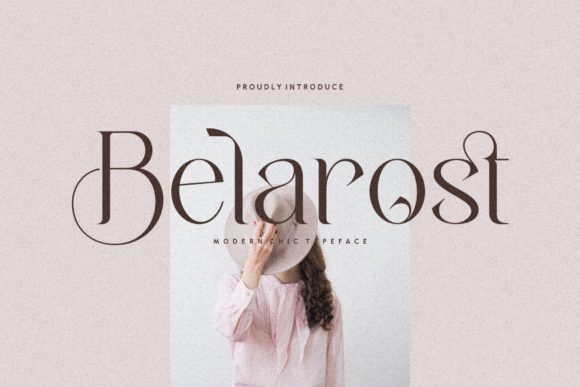
Prepare to be captivated by Belarost, a stunning serif font that embodies elegance, grace, and unparalleled style. Each meticulously crafted letter dances across the page, exuding a timeless charm that will elevate your designs to new heights.
Unlock the power of Belarost and transform your Instagram feed into an enchanting visual masterpiece. Its slender strokes and sophisticated curves will add an air of refinement to your every post, captivating your audience with its understated beauty.
With Belarost, you'll embark on a typographic journey where creativity knows no bounds. Its versatile nature seamlessly complements a wide range of design aesthetics, from classic and timeless to modern and edgy. Whether you're crafting elegant wedding invitations, eye-catching social media graphics, or sophisticated branding materials, Belarost will effortlessly elevate your work to new levels of excellence.
Crafted by the renowned Penatic Studio, Belarost is a testament to the art of font design. Its PUA encoding grants you effortless access to a treasure trove of glyphs and swashes, empowering you to unleash your imagination and create designs that shimmer with personality and flair.
Don't settle for ordinary fonts that blend into the background. Choose Belarost, the font that commands attention, captivates hearts, and leaves an unforgettable impression. Let its timeless allure enchant your designs and elevate your creativity to new realms of brilliance.